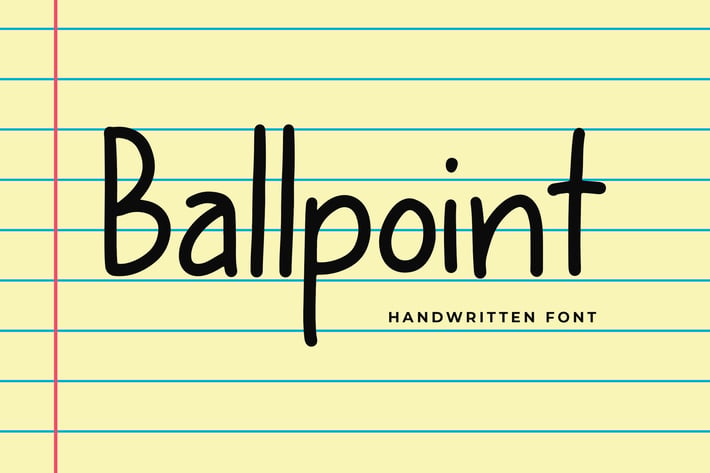
Ballpoint Modern Display Font
Ballpoint is a playful modern Display font. This font perfect for branding projects, logo, book cover design, tshirt designs, social media posts, advertisements, product packaging, product designs, label, watermark, invitation, stationery and any projects